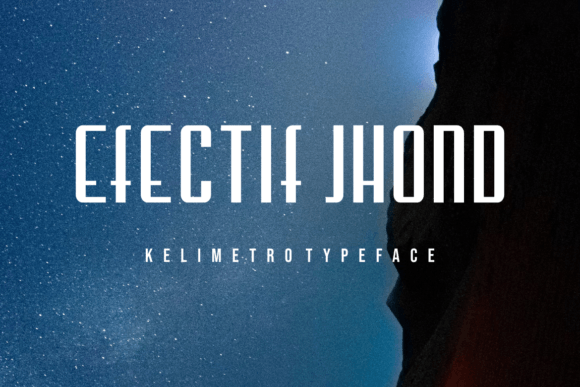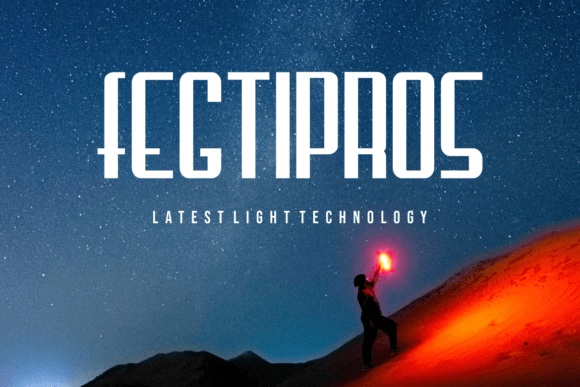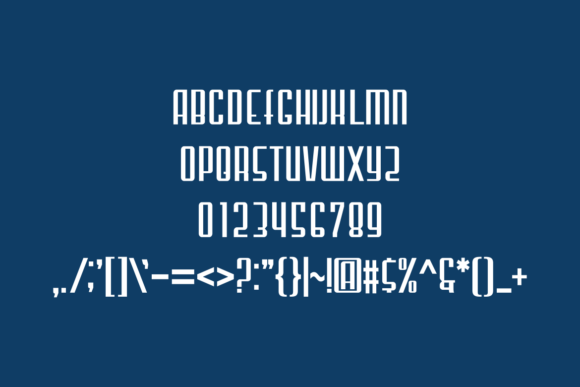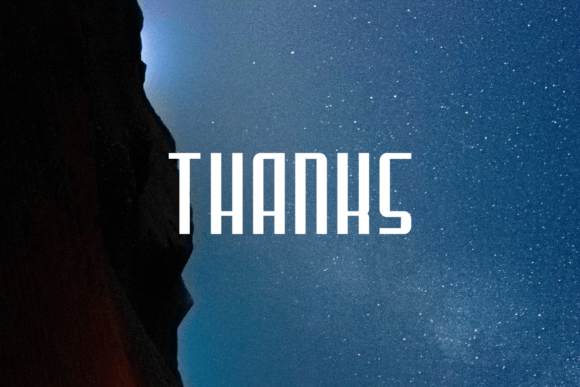
Introduction to Kelimetro Font
Remember that moment when you’re working on a design project and you’re stuck on finding the perfect font? The one that screams “I’m here to make a statement”? For designers, it’s a challenge we all face at some point. But what if I told you that there’s a font that’s about to change the game? Enter the Kelimetro Font, a bold and distinctive display font that’s perfect for branding projects, sports themes, and more.
What sets Kelimetro apart is its versatility and high quality design, making it a valuable resource for any creative project. With its unique style, it’s easy to make a lasting impression on your audience. Whether you’re working on a logo, a sports jersey, or even a video game title, Kelimetro Font is sure to stand out across various applications, including those with transparent backgrounds.
Kelimetro Font
- Unique, modern design that can be used as a design resource for various applications.
- Transparent background, allowing for easy integration with different design elements.
- Perfect for designers and artists looking for a high-quality, free design resource for their creative projects.
Honest Review: Kelimetro Font
I recently stumbled upon the Kelimetro Font, and I must say it’s been a game-changer for my design projects. This high-quality font is perfect for creative projects that require a unique touch.
- What works well: ✨ The Kelimetro Font is incredibly versatile and works seamlessly on various design elements, from headings to body text. Its sleek design and transparent background make it an excellent addition to any design resource.
However, there are a few limitations to keep in mind: ⚠️ The font may not be suitable for projects that require a lot of text or complex layouts, as it can become overwhelming.
Overall, I’m thoroughly impressed with the Kelimetro Font. Its high quality, unique design, and free download make it an excellent addition to any design resource. I would highly recommend it to anyone looking to elevate their creative project with a professional touch.
Kelimetro Font is a free design resource ideal for creative projects that require a high-quality, unique font. Its transparent background allows for seamless integration with various design elements.
For optimal results, use Kelimetro Font in conjunction with high-quality images and design elements. Experiment with different font sizes and combinations to create visually appealing designs.
Kelimetro Font is ideal for:
- Brand identity projects
- Graphic design for social media and advertising
- Creative writing and publishing